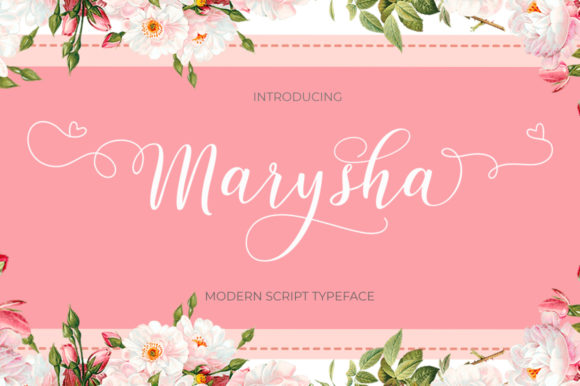
Step into the world of Marysha Script Font, a calligraphy dream come true. This enchanting script font family, crafted by the talented minds at Typehill, embodies the essence of timeless elegance and modern charm. Its graceful curves and delicate strokes evoke a sense of sophistication and femininity, making it the perfect choice for adding a touch of personalized beauty to your creative endeavors.
With Marysha Script Font, let your imagination run wild. Design elegant wedding invitations that capture the essence of your special day, or create heartfelt thank you cards that express your gratitude in style. Whether you're crafting inspirational quotes to uplift your spirits or designing thoughtful greeting cards to send to loved ones, Marysha Script Font adds a captivating touch of elegance that amplifies your message.
Harness the power of Marysha Script Font to elevate your branding efforts. Create logos that exude professionalism and creativity, leaving a lasting impression on your clients. Craft business cards that showcase your unique style and stand out from the crowd. Marysha Script Font's versatility extends beyond personal projects; it's the perfect tool for designers seeking to create stunning social media graphics, website designs, or product packaging that resonates with your target audience.
But Marysha Script Font isn't just versatile; it's an emotional powerhouse. Its charming personality brings warmth and joy to every word, making it the ideal choice for conveying heartfelt messages and evoking powerful emotions. Whether you're designing marketing materials that connect with customers on a deeper level or creating personal projects that capture special moments, the Marysha Script Font adds a layer of emotional depth that leaves a lasting impact.
In a world where authenticity and individuality reign supreme, Marysha Script Font is your ultimate creative companion. It allows you to express yourself in a way that's uniquely yours, adding a dash of charm and a touch of magic to everything you create. Embrace the beauty of Marysha Script Font and unlock a world of endless creative possibilities.